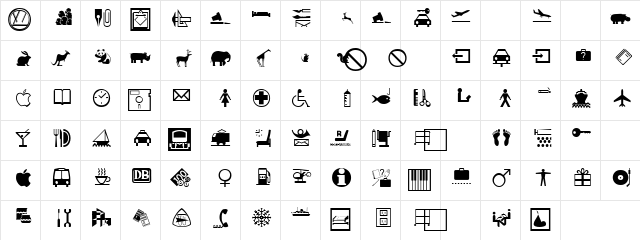
Gifty Fonts Regular
Design Context for Gifty Fonts Typeface
Gifty Fonts is a composed and adaptable typeface that performs quietly and consistently across a wide range of design contexts.